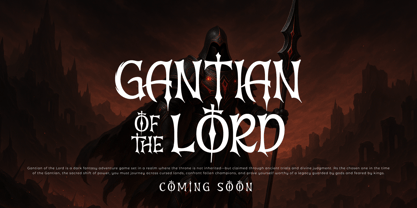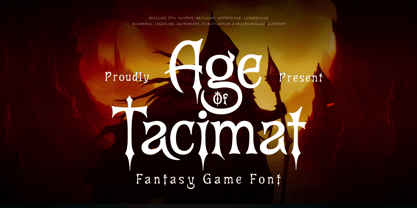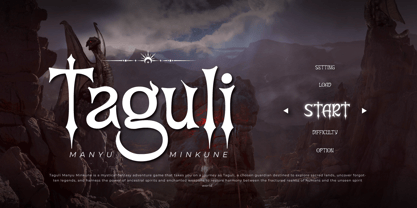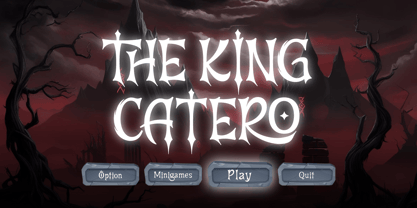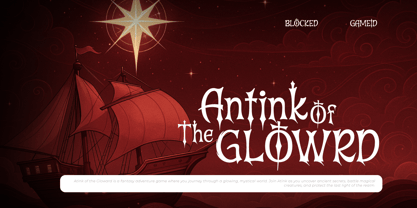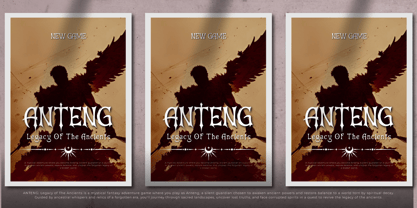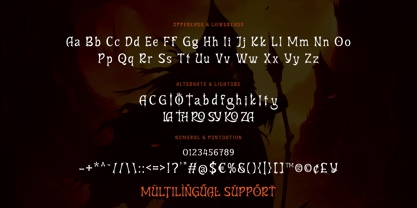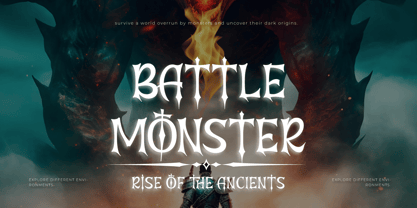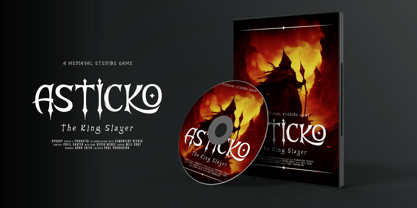
Age Of Tacimat
The Age Of Tacimat Font Family was designed by Rozikan and published by Twinletter. Age Of Tacimat contains 1 styles. More about this family
Step into an ancient world of valor and legend with Age Of Taclmat, a fantasy game font crafted to evoke the spirit of mythical lands and heroic quests. With its rugged serifs, dramatic curves, and timeless character, this font brings immersive fantasy aesthetics to life—perfect for RPG game titles, epic book covers, dungeon maps, or fantasy movie posters.
Every glyph in Age Of Taclmat carries the weight of forgotten empires and heroic destinies. Whether you're designing for a high-fantasy game, tabletop RPG, or a dark sorcery tale, this font delivers intensity and medieval charm with a modern edge. Let your creativity rise through ancient winds—forge your next legendary story with Age Of Taclmat.